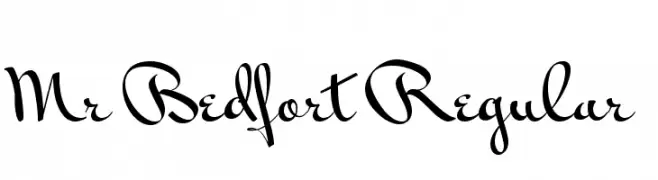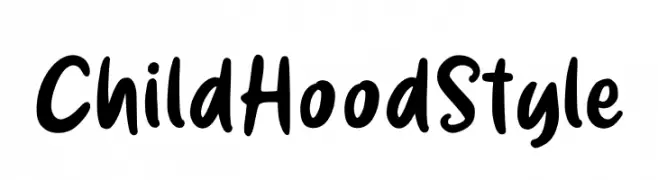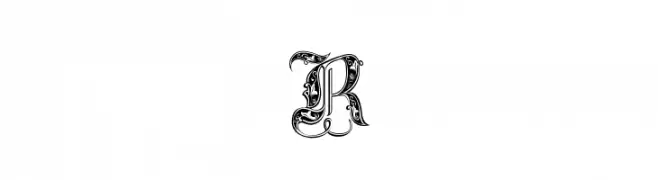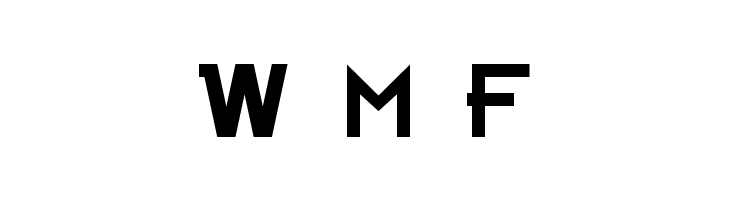
A dynamic and flowing script font with elegant cursive letterforms.
A playful, handwritten-style font with bold, rounded characters and a lively, youthful vibe.
A bold, stencil-style font with geometric shapes and clear cutouts, perfect for impactful designs.
An ornate and regal font with intricate details and decorative flourishes.
A playful, bold handwritten font with dynamic strokes and a casual feel.